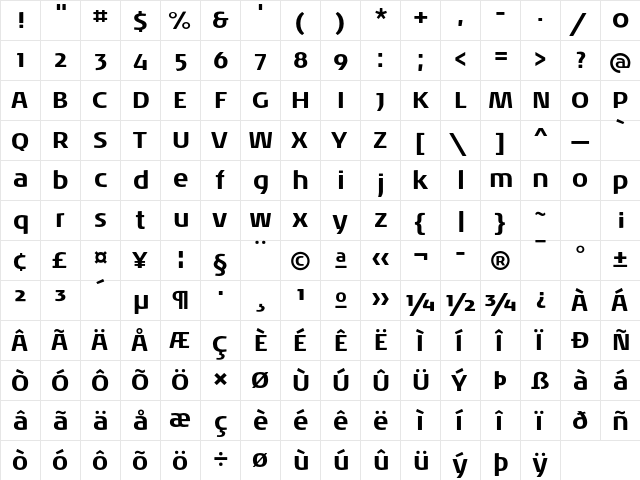
Noa LT Std Bold
| Foundry | Linotype GmbH |
| Designer | Nina Lee Storm |
Design Context for Noa LT Std Typeface
Noa LT Std is a composed and adaptable typeface that performs quietly and consistently across a wide range of design contexts. Its bold stroke weight gives it real presence on the page.